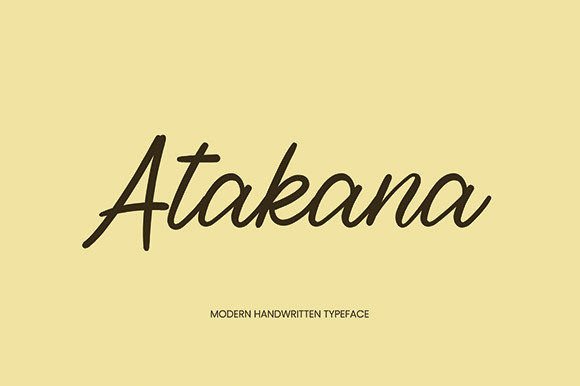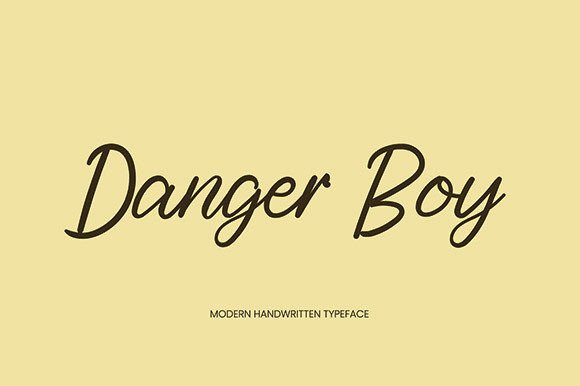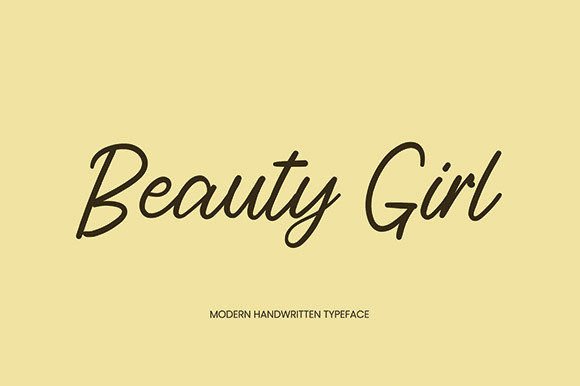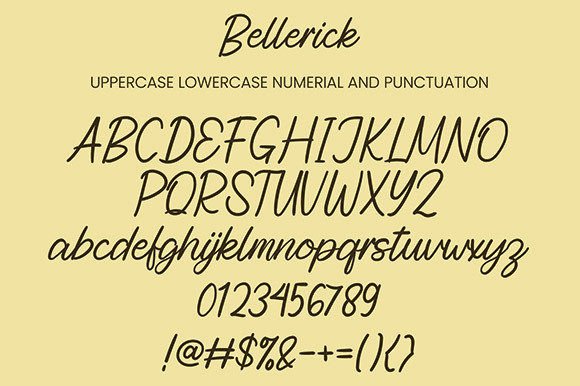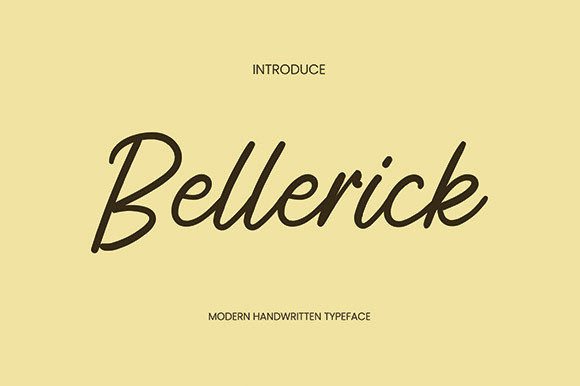
Bellerick Font: A Fresh Take on Natural Typography
In the world of typography, fonts play a crucial role in conveying messages, expressing emotions, and creating visual identities. For designers, crafters, and creative enthusiasts, finding the perfect font can be a daunting task. However, if you’re looking for a natural font with a unique style, look no further than Bellerick Font. This versatile font is suitable for a wide range of projects, from quotes and logos to blog headers, posters, ribbons, fashion, clothing, letters, invitations, and stationery.
The Unique Charm of Bellerick Font
Bellerick Font boasts a distinctive, natural style that sets it apart from other fonts. Its elegant and flowing curves evoke a sense of organic simplicity, making it perfect for designs that require a touch of sophistication and whimsy. The font’s unique charm lies in its ability to balance modernity with a rustic, earthy feel, making it an excellent choice for a variety of creative projects.
One of the standout features of Bellerick Font is its versatility. Whether you’re working on a personal project or a professional assignment, this font can adapt to various design requirements. Here are some of the many ways you can use Bellerick Font:
• Quotes: Add a touch of elegance to your inspirational quotes, making them perfect for social media posts, posters, or blog headers.
• Logos: Create a memorable brand identity with Bellerick Font, ideal for businesses, products, or services that require a natural and sophisticated look.
• Blog Headers: Elevate your blog’s visual appeal with Bellerick Font, making it perfect for titles, headings, and section dividers.
• Posters: Design eye-catching posters for events, promotions, or awareness campaigns with this versatile font.
• Ribbons: Add a touch of whimsy to your ribbon designs, perfect for parties, gifts, or packaging.
• Fashion and Clothing: Use Bellerick Font to create stylish and eye-catching labels, tags, or advertisements for fashion and clothing brands.
• Letters and Invitations: Add a personal touch to your letters, invitations, and stationery with this beautiful font.
Why Designers and Crafters Love Bellerick Font
Bellerick Font has quickly become a favorite among designers and crafters due to its unique characteristics and versatility. Here are some reasons why:
• Easy to Read: Bellerick Font features clear and legible letterforms, making it easy to read and understand.
• Highly Customizable: Experiment with various font sizes, colors, and styles to create a unique look that suits your design needs.
• Unique Style: Stand out from the crowd with Bellerick Font’s distinctive style, which adds a touch of personality to your designs.
Tips for Getting the Most Out of Bellerick Font
To maximize the potential of Bellerick Font, here are some design tips:
• Experiment with Font Sizes: Play with different font sizes to create visual hierarchy and emphasize key messages.
• Pair with Other Fonts: Combine Bellerick Font with other fonts to create a unique and visually appealing typography.
• Use Colors Wisely: Select colors that complement the natural style of Bellerick Font, such as earthy tones, pastels, or rich jewel tones.
• Add Texture and Patterns: Incorporate texture and patterns to add depth and visual interest to your designs.
Author chatype studio
Bellerick Font is a natural font with a unique style that offers endless possibilities for designers, crafters, and creative enthusiasts. Its versatility, legibility, and charm make it an excellent choice for a wide range of projects, from quotes and logos to blog headers, posters, and more. With Bellerick Font, you can add a touch of sophistication and whimsy to your designs, setting you apart from the crowd. So why wait? Explore the creative possibilities of Bellerick Font today and take your designs to the next level!